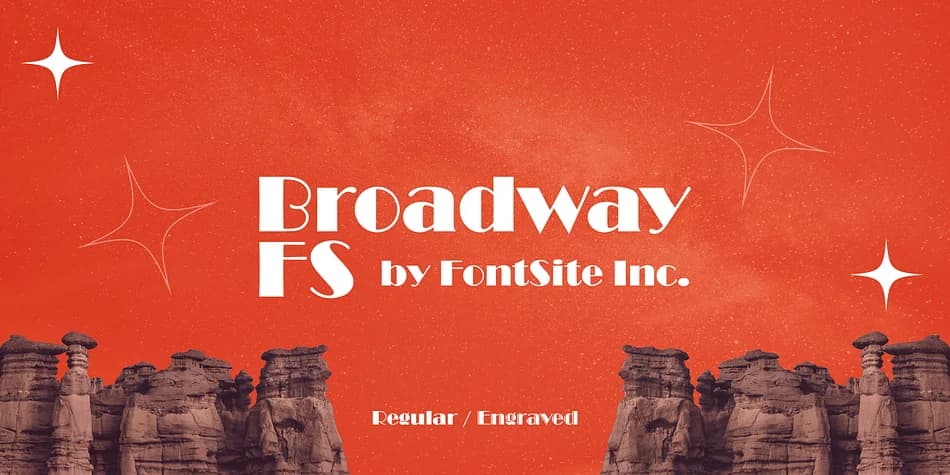
1 / 2About Broadway FS Font
Broadway FS is a decorative font designed by FontSite Inc.. Broadway FS is a premium font β see the listing for pricing and license terms. Decorative fonts like Broadway FS work best for logos, posters, packaging, and standout headlines.
Broadway FS Font is a decorative font that shines as a display or heading face. Pair it with a clean sans-serif or serif font for body text β the contrast creates a clear hierarchy while the two styles stay balanced and easy to read.
Broadway FS Font
Broadway FS Font is a decorative typeface by FontSite Inc., ideal for logos, invitations, branding, and creative projects.